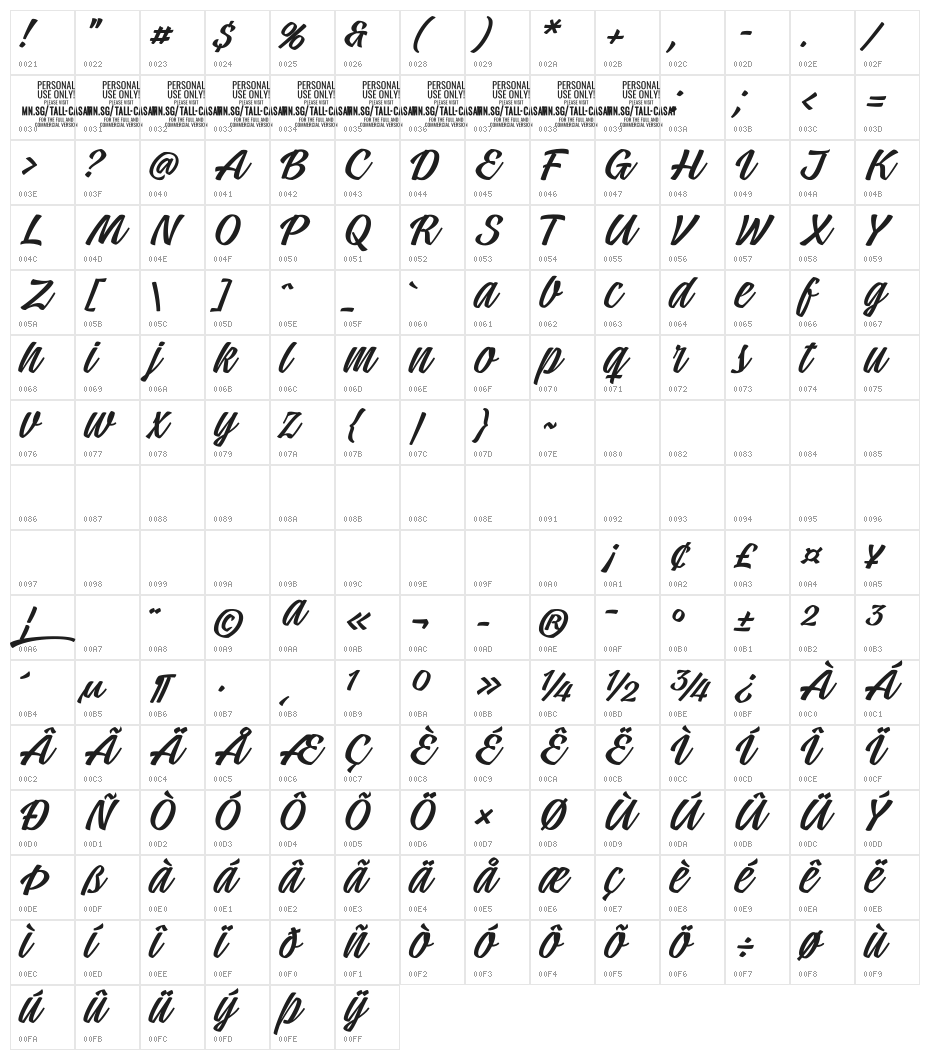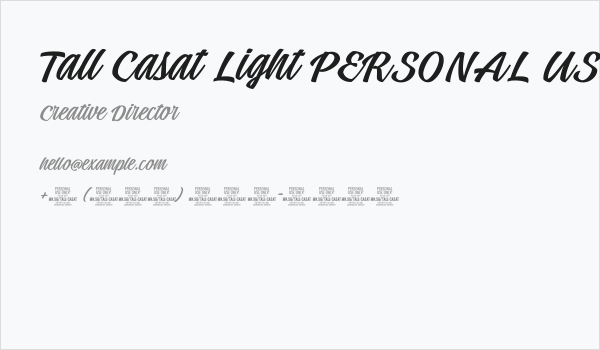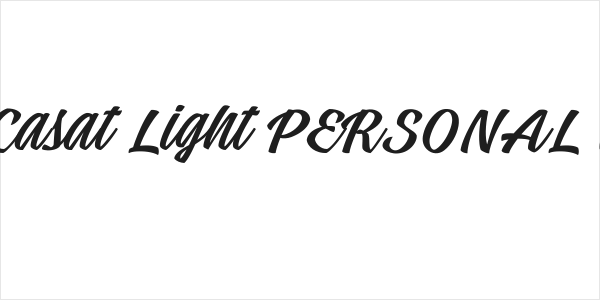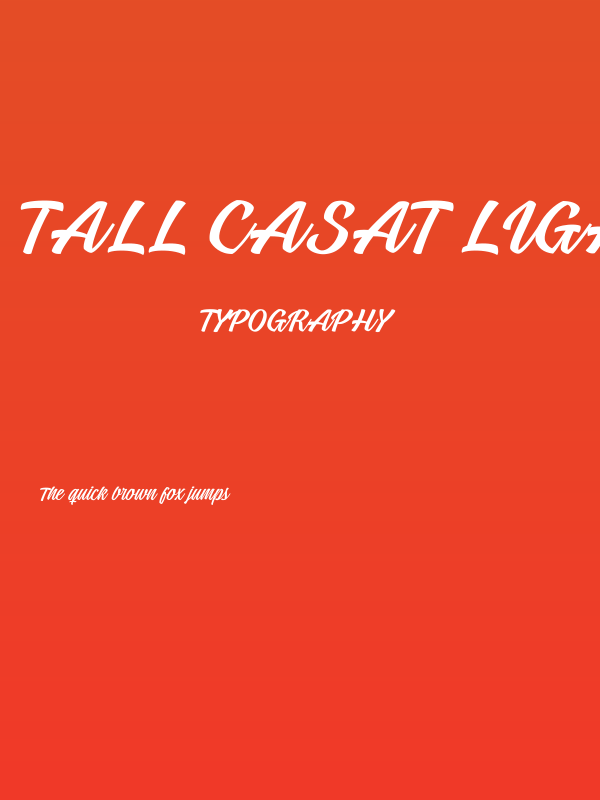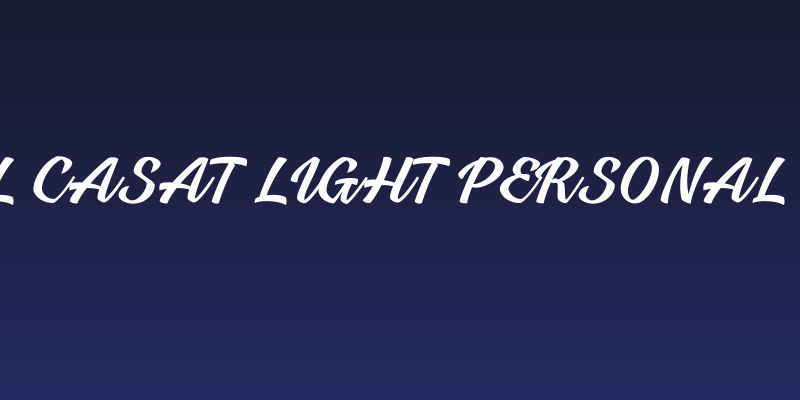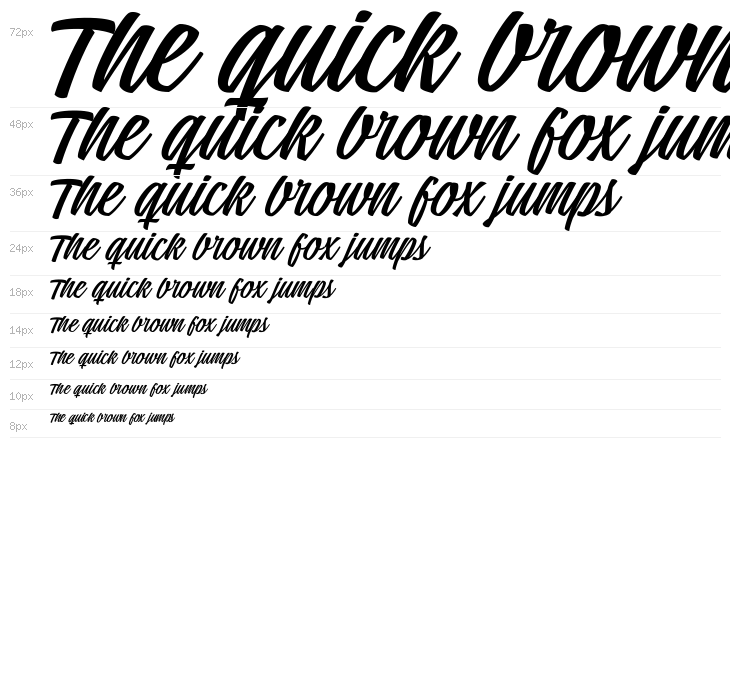
Tall Casat Light PERSONAL USE Font
Tall Casat Light PERSONAL USE Description
This font features a dynamic and flowing script style, characterized by its elegant, cursive letterforms. The uppercase letters are bold and slightly slanted, giving a sense of movement and fluidity. The lowercase letters maintain a consistent style with smooth connections between characters, enhancing the script's cohesive appearance. The numerals and special characters are designed to match the overall aesthetic, ensuring uniformity across all glyphs. This font's design is both modern and stylish, making it suitable for a variety of creative applications.